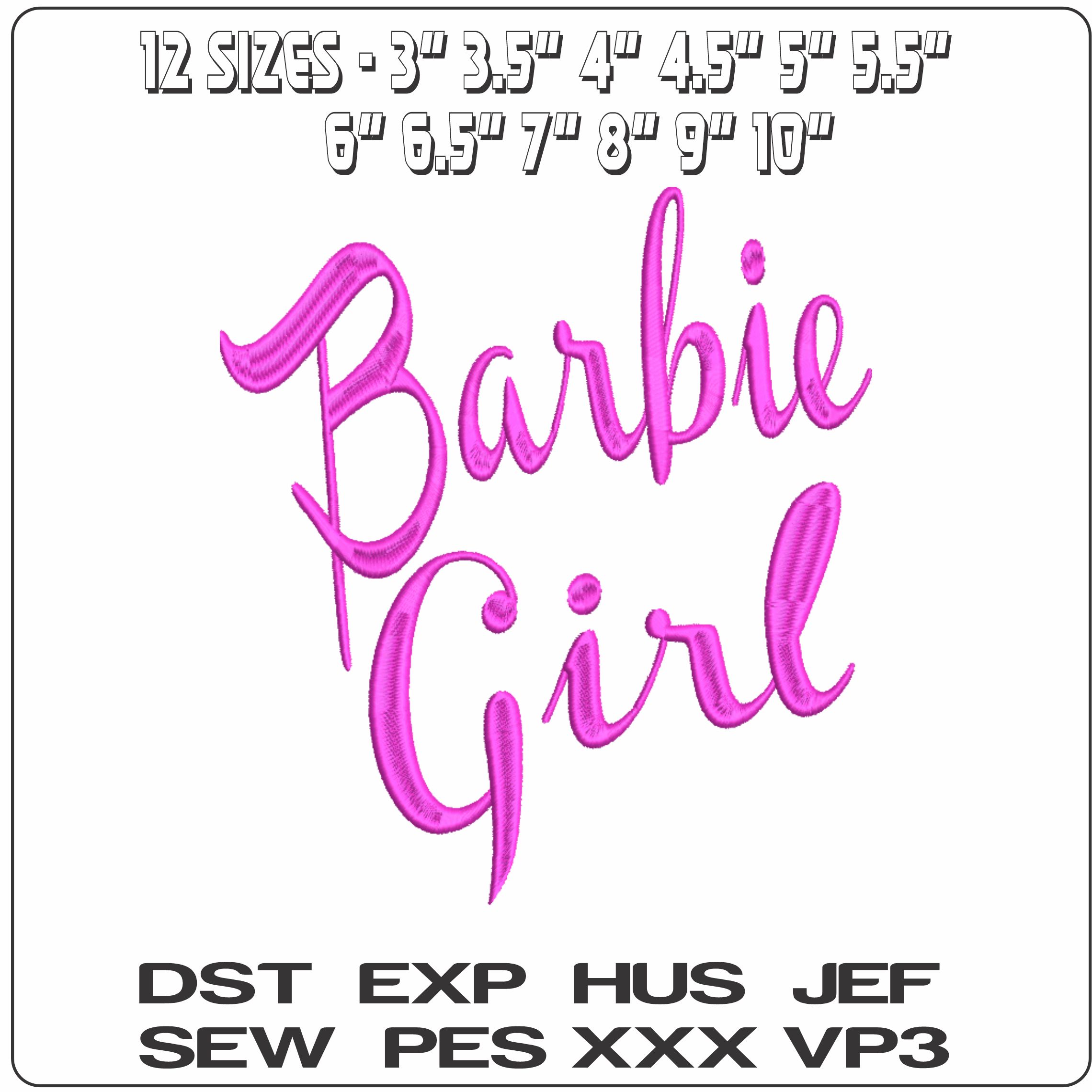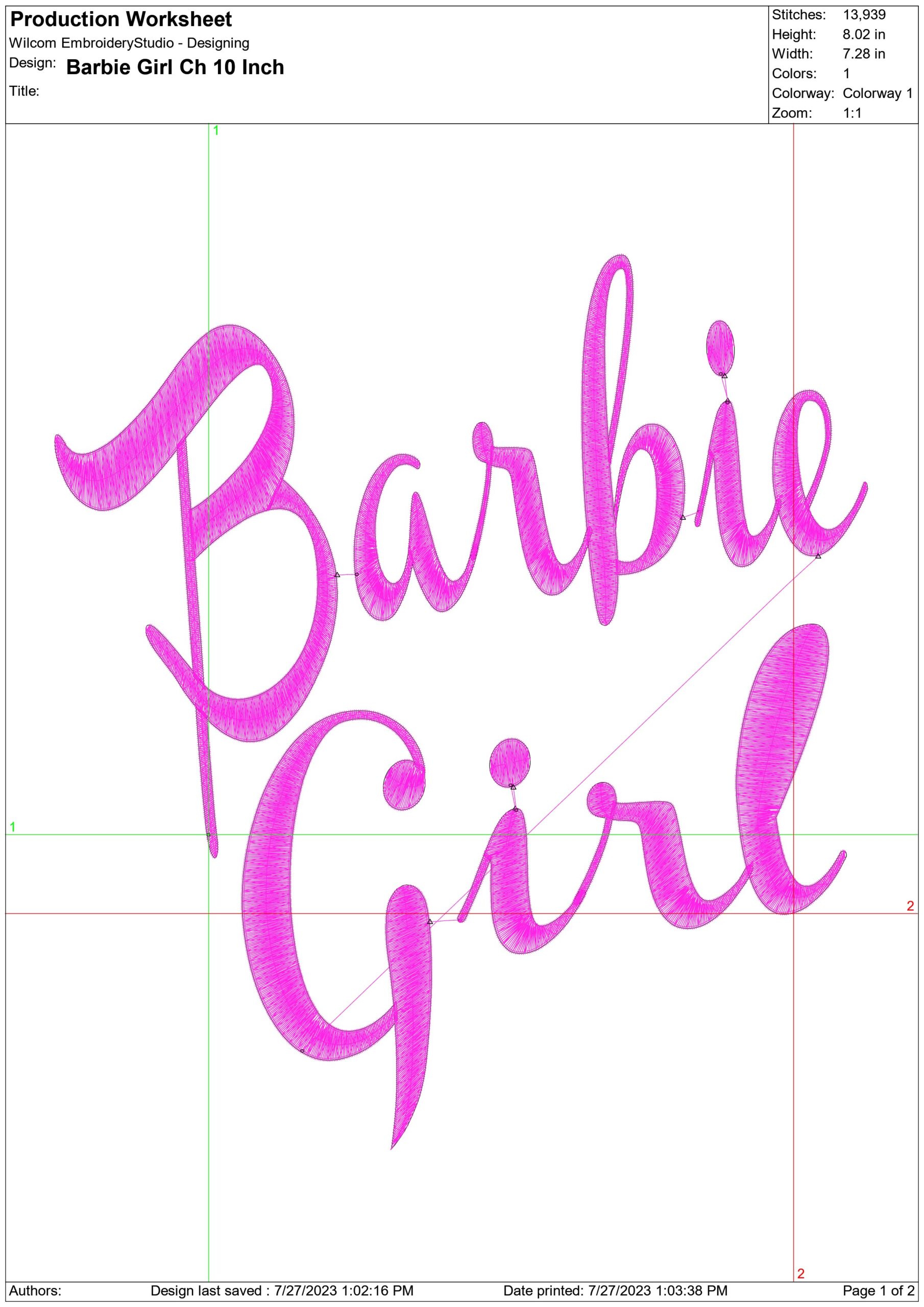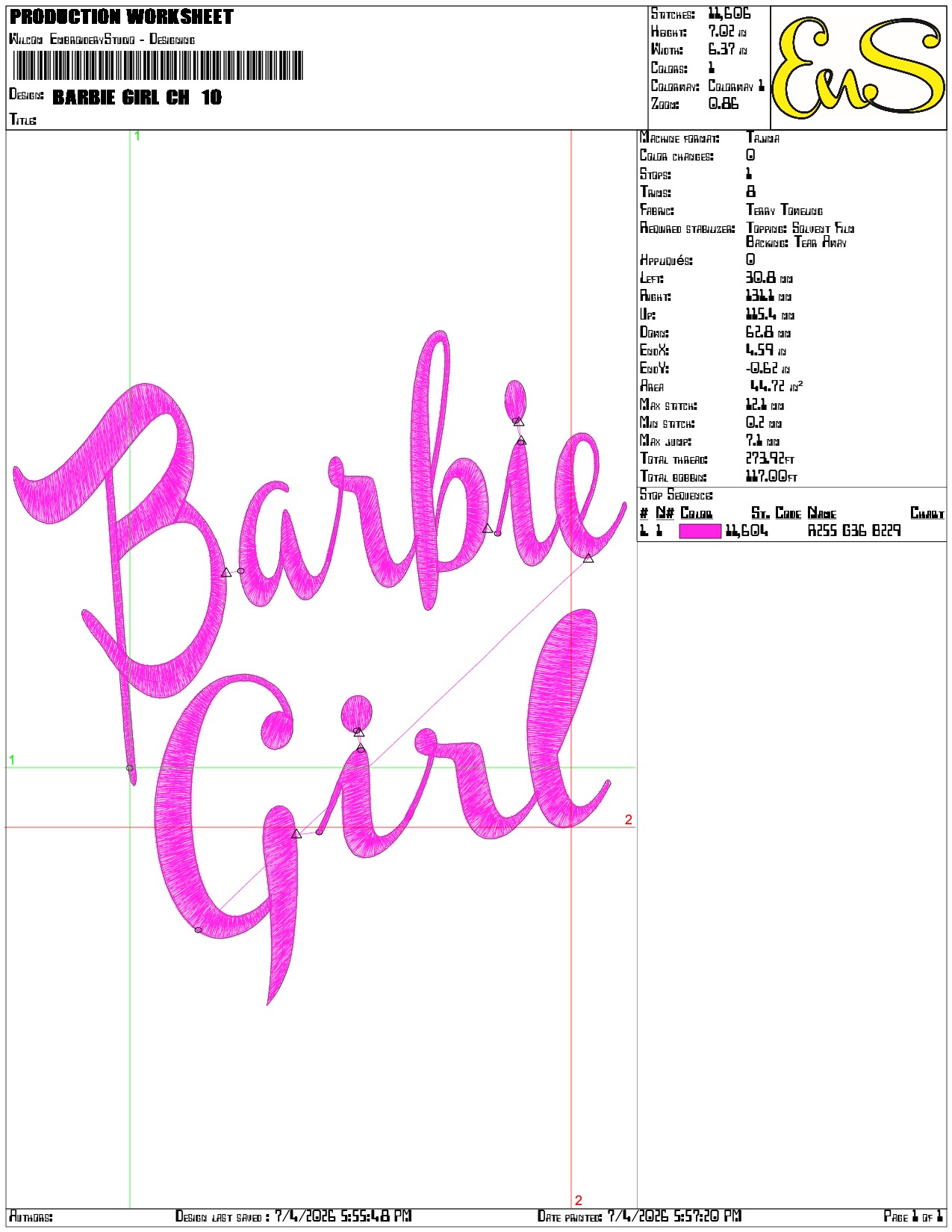
Barbie Girl text embroidery design - Pink Barbie Channel Font Logo design machine pattern embroidery file instant download in a frame
Pink “Barbie Girl” script adds a bold, playful logo look to jackets, sweatshirts and accessories for kids, teens and grown-up Barbie fans.
Bring pink attitude to your stitching with this modern “Barbie Girl” text design, set in flowing script with the words stacked for a bold logo-style finish. The bright pink lettering gives it that unmistakable doll-inspired look without needing extra motifs around it. It suits children’s clothing, tween accessories and fun personalised pieces for women who like their embroidery a little more playful.
This style works especially well on the front of hoodies, denim jackets, tote bags, cosmetic pouches and sweatshirt backs where the script can do the talking. Because the design is all about clean lettering, it stands out best on plain fabrics and simple colour palettes, especially white, black, pale pink or washed denim. Use it when you want a statement name-style graphic that feels feminine, youthful and instantly recognisable.